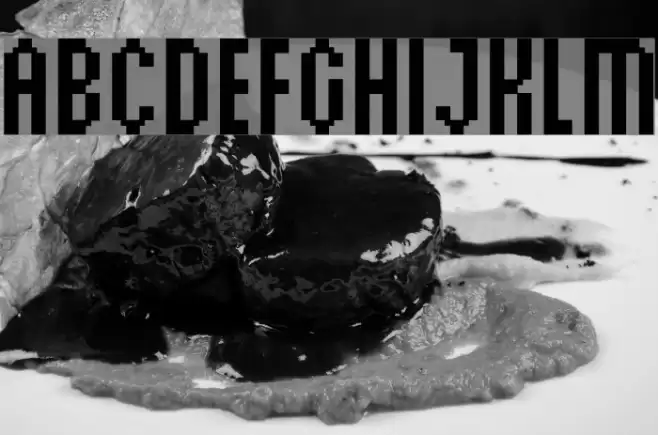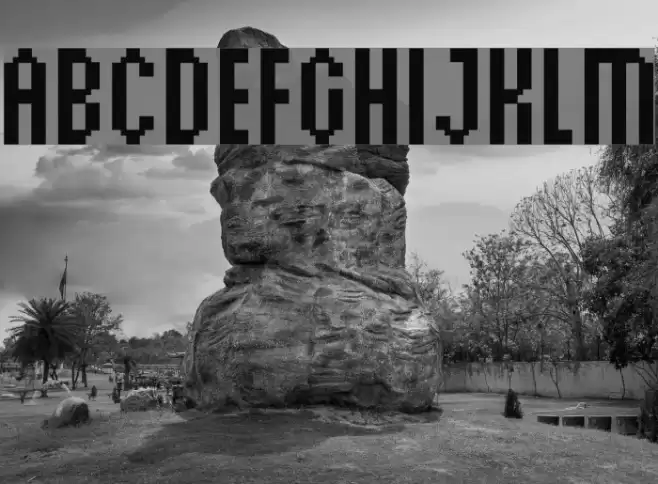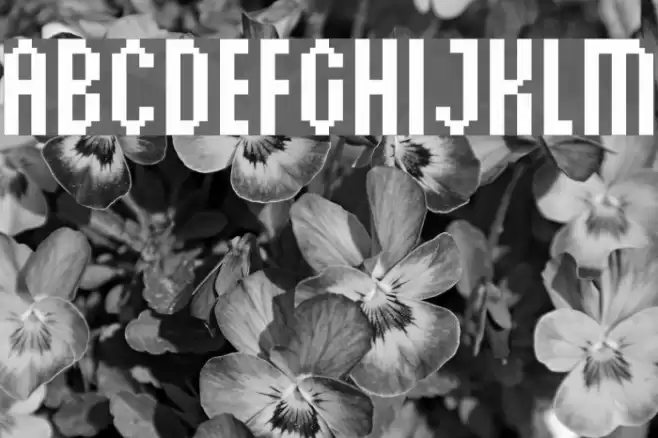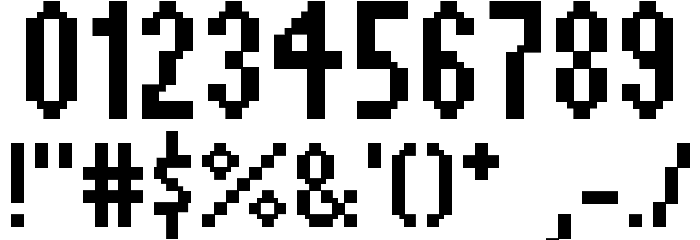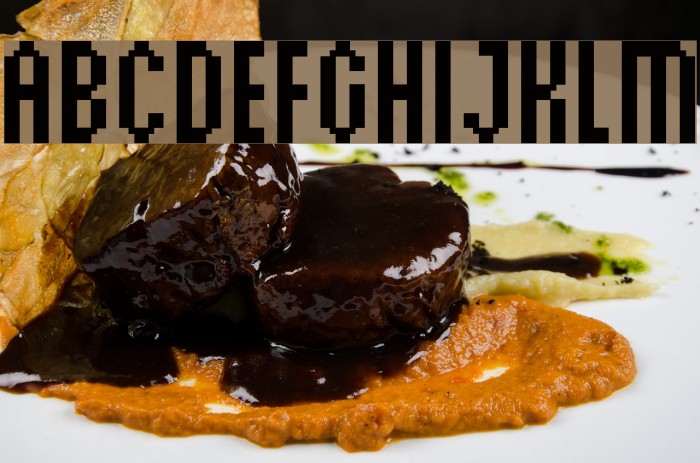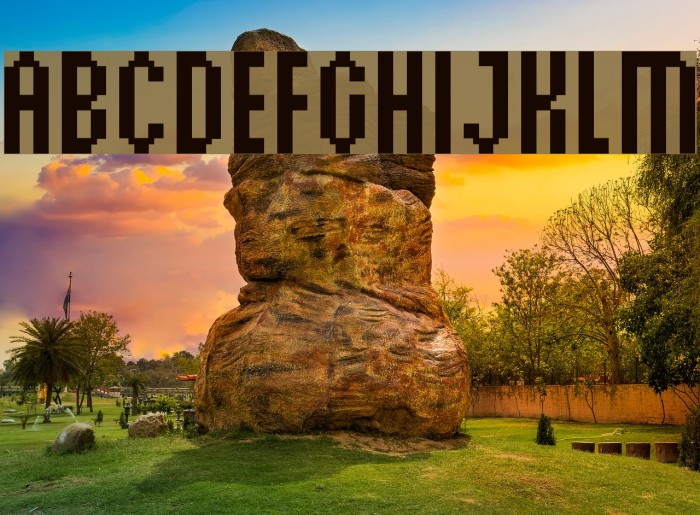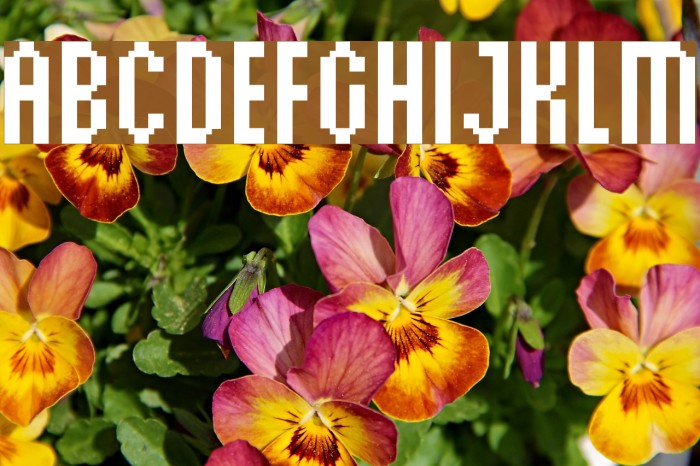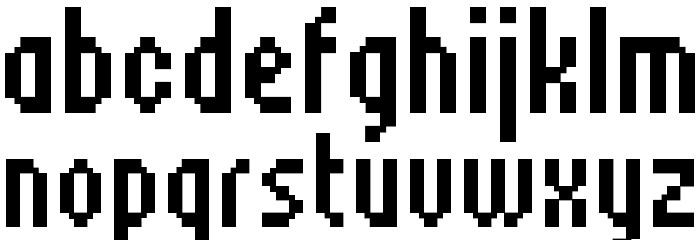
Silky Wonderland Font
Silky Wonderland Description
This font features a bold, pixelated style reminiscent of early digital and arcade aesthetics. Each character is constructed with a blocky, grid-like appearance, giving it a retro and playful vibe. The uppercase and lowercase letters maintain a consistent height, contributing to a uniform look across text. Numbers and special characters follow the same pixelated design, ensuring cohesion throughout. The font's simplicity and geometric form make it highly legible, even at smaller sizes, while its unique style adds a distinct personality to any project.
A bold, pixelated font with a retro digital aesthetic from Pixel fonts.
- Proposed Projects: Ideal for video game design, digital art projects, retro-themed posters, and any creative work that requires a nostalgic, digital touch.
- Overall Style: Retro, Digital